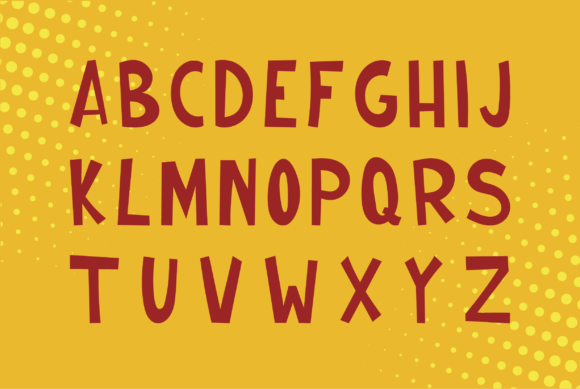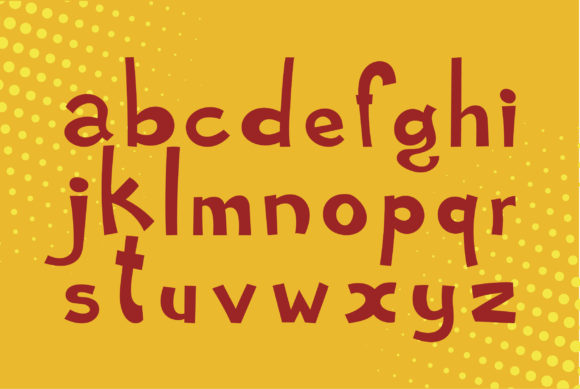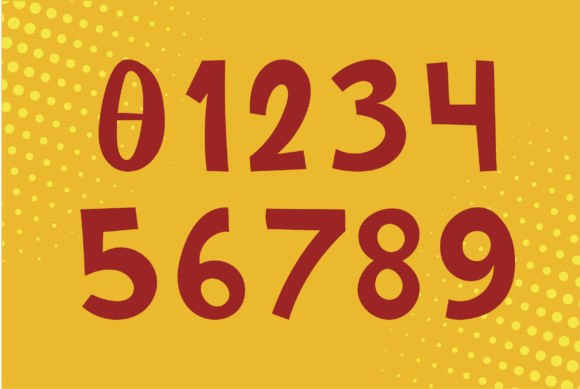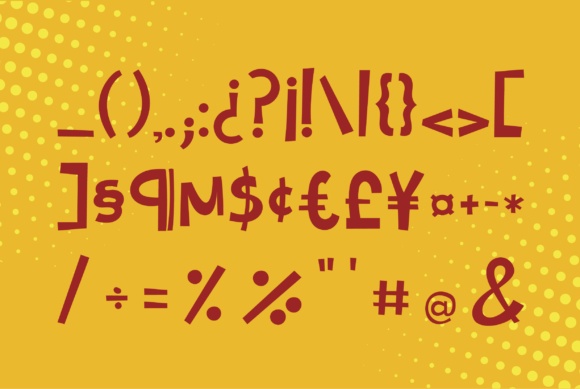
Unlocking the Power of Whimsy: The Cartoonilo Font
Remember those moments when you were a child, curled up with a favorite comic book or cartoon, and let the vibrant colors and quirky characters transport you to a world of endless imagination? For many of us, those moments sparked a lifelong passion for creativity. And what better way to tap into that sense of wonder than with a font that embodies the same carefree spirit?
Meet the Cartoonilo Font, a delightful creation inspired by the classic comic and cartoon fonts of our childhood. This charming font is designed to bring a smile to your face and a dash of fun to your designs. With its playful, childlike charm, Cartoonilo Font is the perfect addition to any project that needs a touch of whimsy.
For designers, Cartoonilo Font is a valuable asset that can add an extra layer of personality to your work. Its versatility makes it suitable for a wide range of applications, from children’s books and educational materials to advertising campaigns and social media graphics. Whether you’re a seasoned pro or just starting out, the Cartoonilo Font is sure to inspire your creativity and help you bring your ideas to life.
Key Features of Cartoonilo Font
- Font Family: Cartoonilo Font offers a range of unique and playful font styles, including bold, regular, and italic variants.
- Unique Characteristics: Cartoonilo Font features a distinctive, hand-drawn style with exaggerated lines and shapes, making it perfect for adding a touch of whimsy to designs.
Cartoonilo Font Review
Overall, I think the Cartoonilo Font is a fun and quirky addition to any design project. ✨ The bold lines and playful shapes make it perfect for creating a whimsical atmosphere. It’s great for kids’ books, advertising campaigns, or any other project that needs a touch of humor.
- ✨ Unique and playful design that stands out from more traditional fonts
- ✨ Works well for titles and headings due to its bold and eye-catching style
- ✨ Can be used for a variety of design projects, from children’s books to social media graphics
However, I do think there are a few limitations to consider. ⚠️ The font can feel a bit over-the-top at times, which may not be suitable for more serious or professional projects. Additionally, the font may not be as readable in smaller sizes or when used for large blocks of text.
- ⚠️ May not be suitable for professional or formal projects due to its playful design
- ⚠️ Can be difficult to read in smaller sizes or when used for large blocks of text
- ⚠️ May require additional design elements to make it feel more polished and refined
Overall, I think the Cartoonilo Font is a great addition to any design project that needs a touch of whimsy and fun. Just be sure to use it thoughtfully and in moderation to avoid overwhelming your audience.
For best results, use Cartoonilo Font for headings and titles, and pair it with a clean sans-serif font for body text.
For best results, use Cartoonilo Font for illustrations, graphics, and design elements.
For best results, use Cartoonilo Font for headings, titles, and design elements.
Cartoonilo Font is perfect for:
Children’s books and educational materials
Cartoon-style graphics and illustrations
Fun and playful marketing materials
Design elements and icons
Alternatives to Cartoonilo Font
1. Comic Sans MS
Comic Sans MS is a sans-serif font designed to resemble hand-drawn comic book lettering. It’s best used for informal, casual designs, such as children’s materials or advertisements. Compared to Cartoonilo Font, Comic Sans MS is more straightforward and lacks the whimsical feel of Cartoonilo Font.
For optimal readability, we recommend using the Cartoonilo font at a minimum size of 14 points and a line height of 1.5 to 2 times the font size. This will help ensure that the text remains clear and easy to read, even at smaller font sizes.